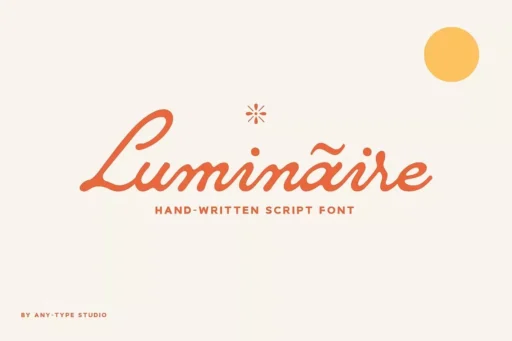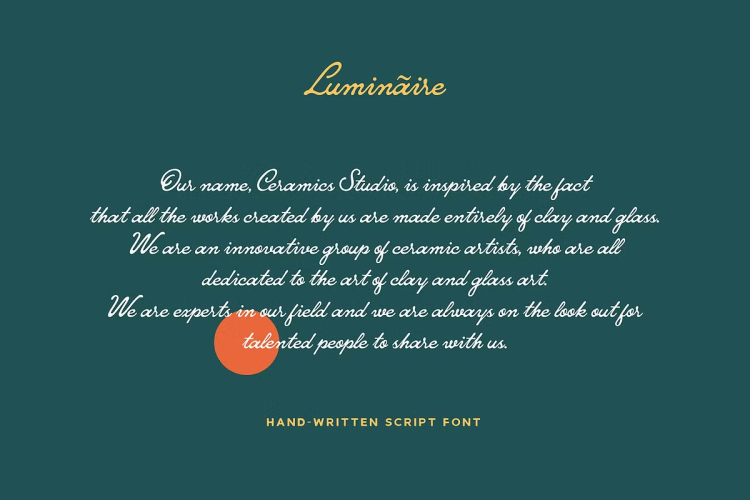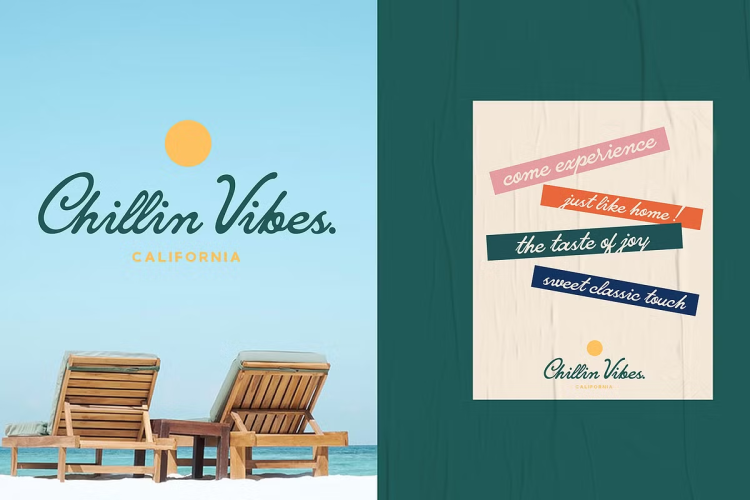
Luminaire Font
Luminaire is a friendly casual script font by Any-Type Foundry inspired by handwriting, pop culture and the urban life style. It will come in handy for your next design job, be it a logo, a printed phrase, an invitation, a card, a product packaging, a header, letterhead, a poster, t-shirts, labels and so forth.
Luminaire Font is a Script And Handwritten font that brings a professional and versatile look to your projects. Luminaire is a friendly casual script font by Any-Type Foundry inspired by handwriting, pop culture and the urban life style.